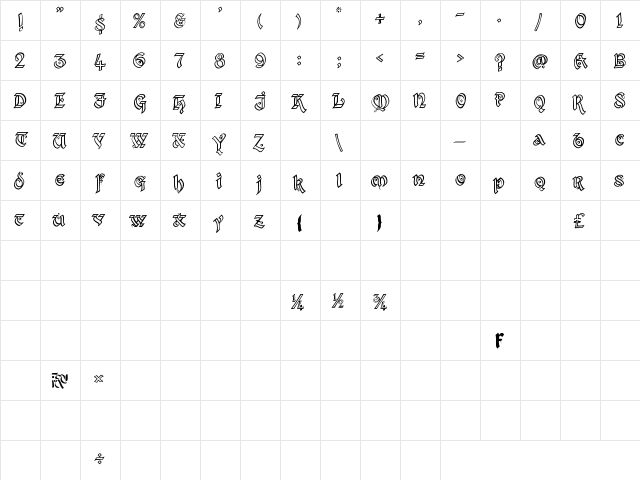
Kingthings Xander Outline Regular
| Designer | Kevin King: Kingthings 2002 |
Design Context for Kingthings Xander Outline Typeface
Kingthings Xander Outline brings ornamental detail and strong personality to headlines and identities, where visual impact matters more than quiet functionality. Its slender proportions lend an understated elegance to any composition.